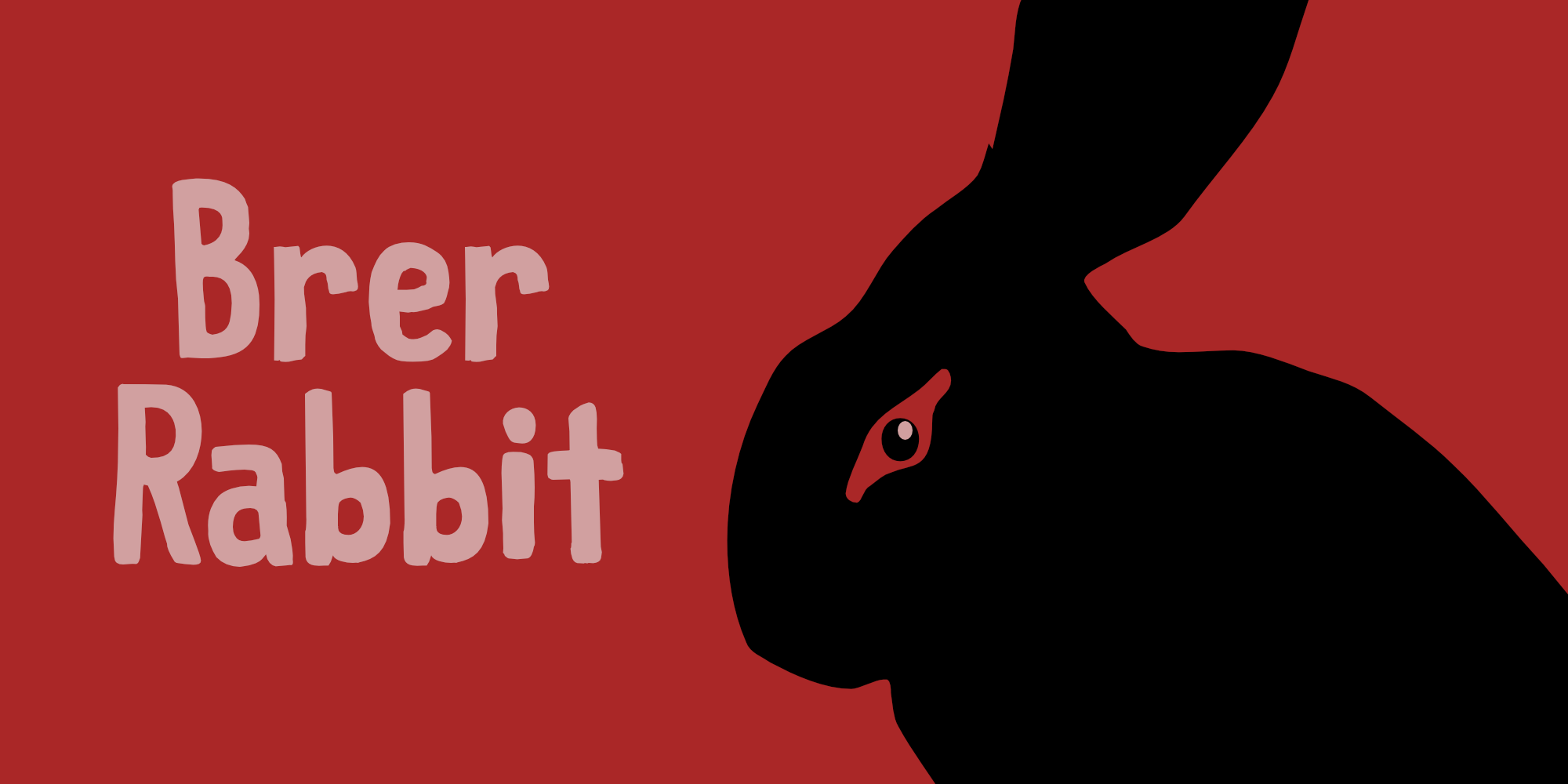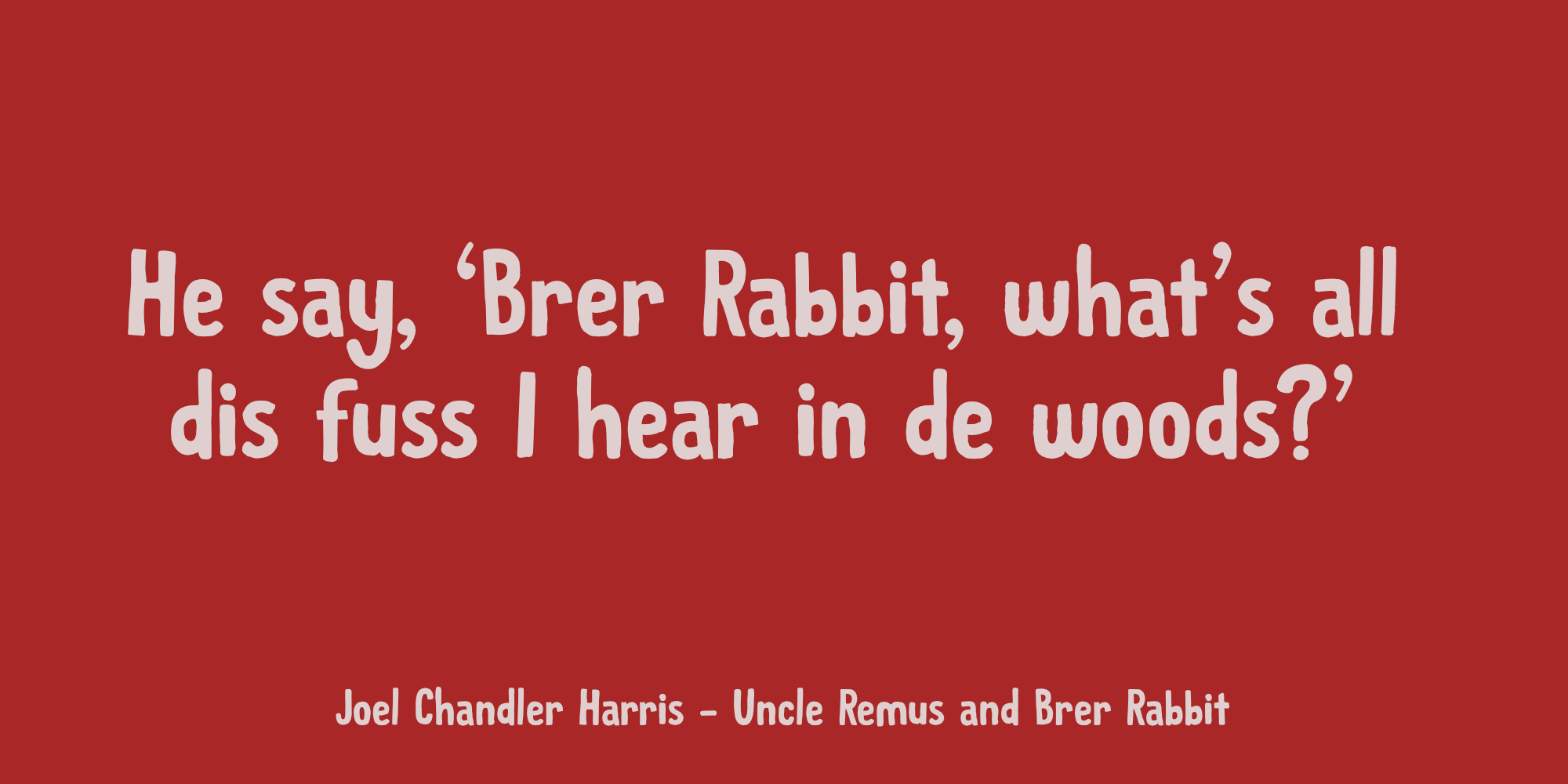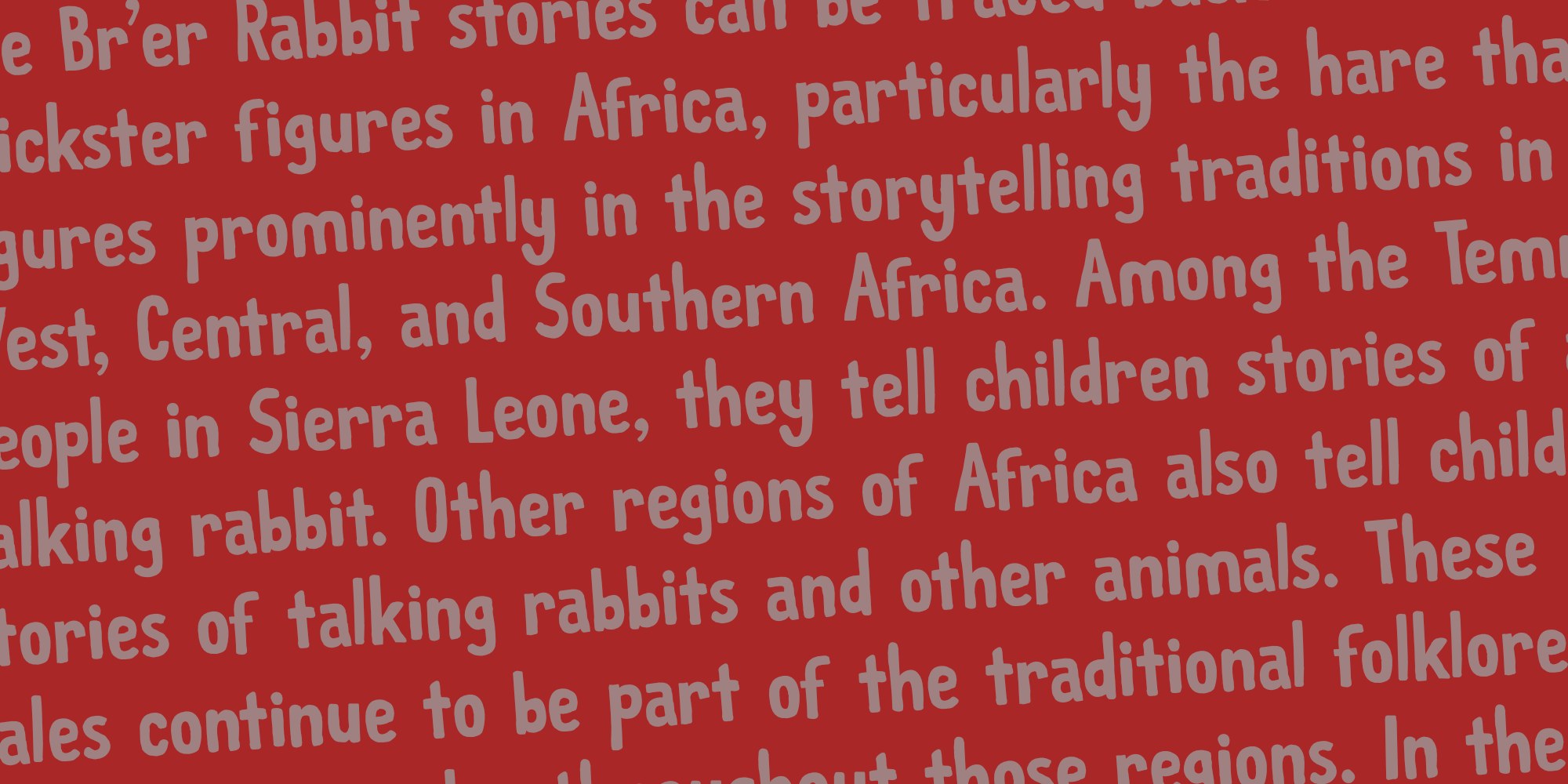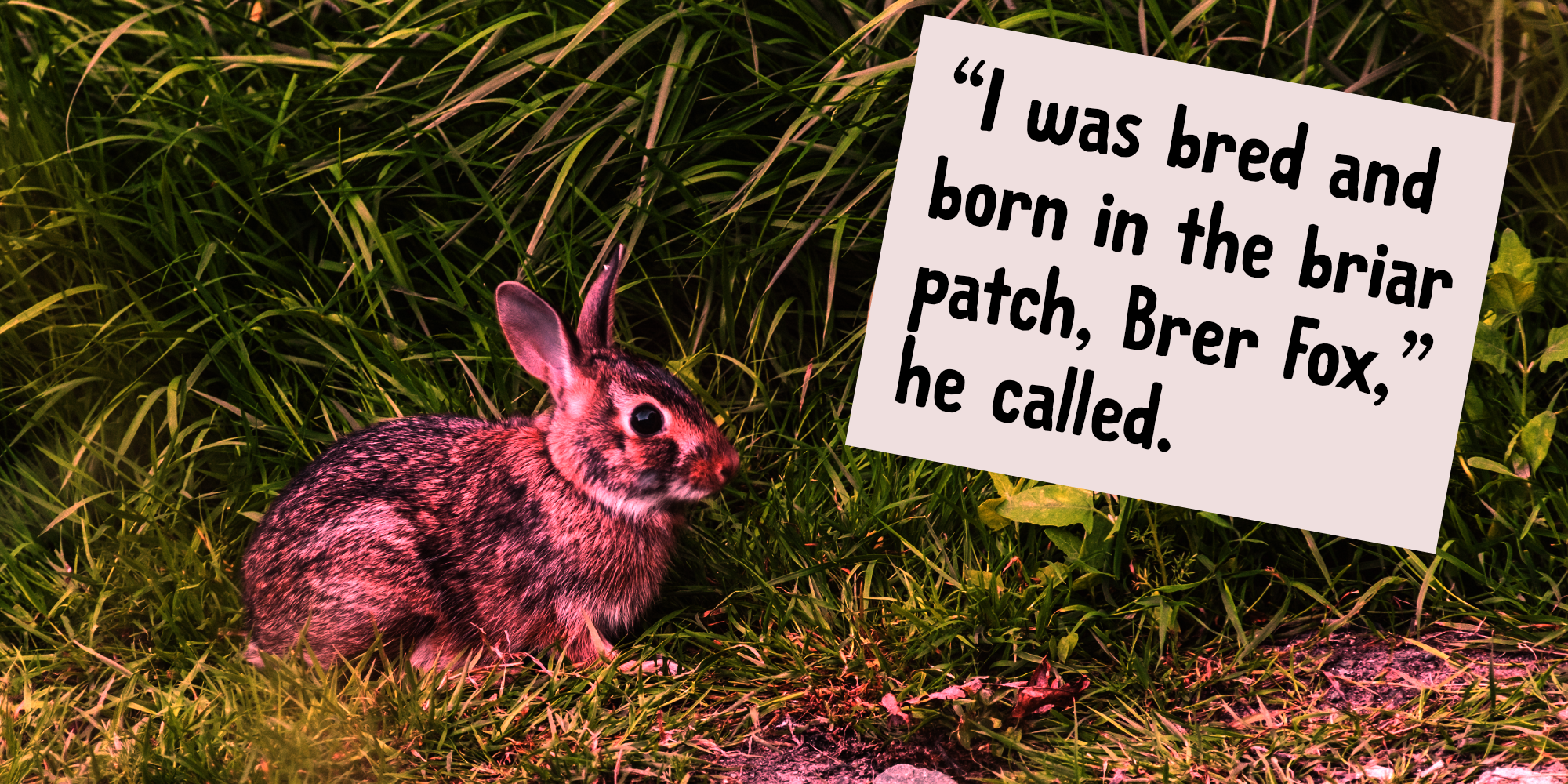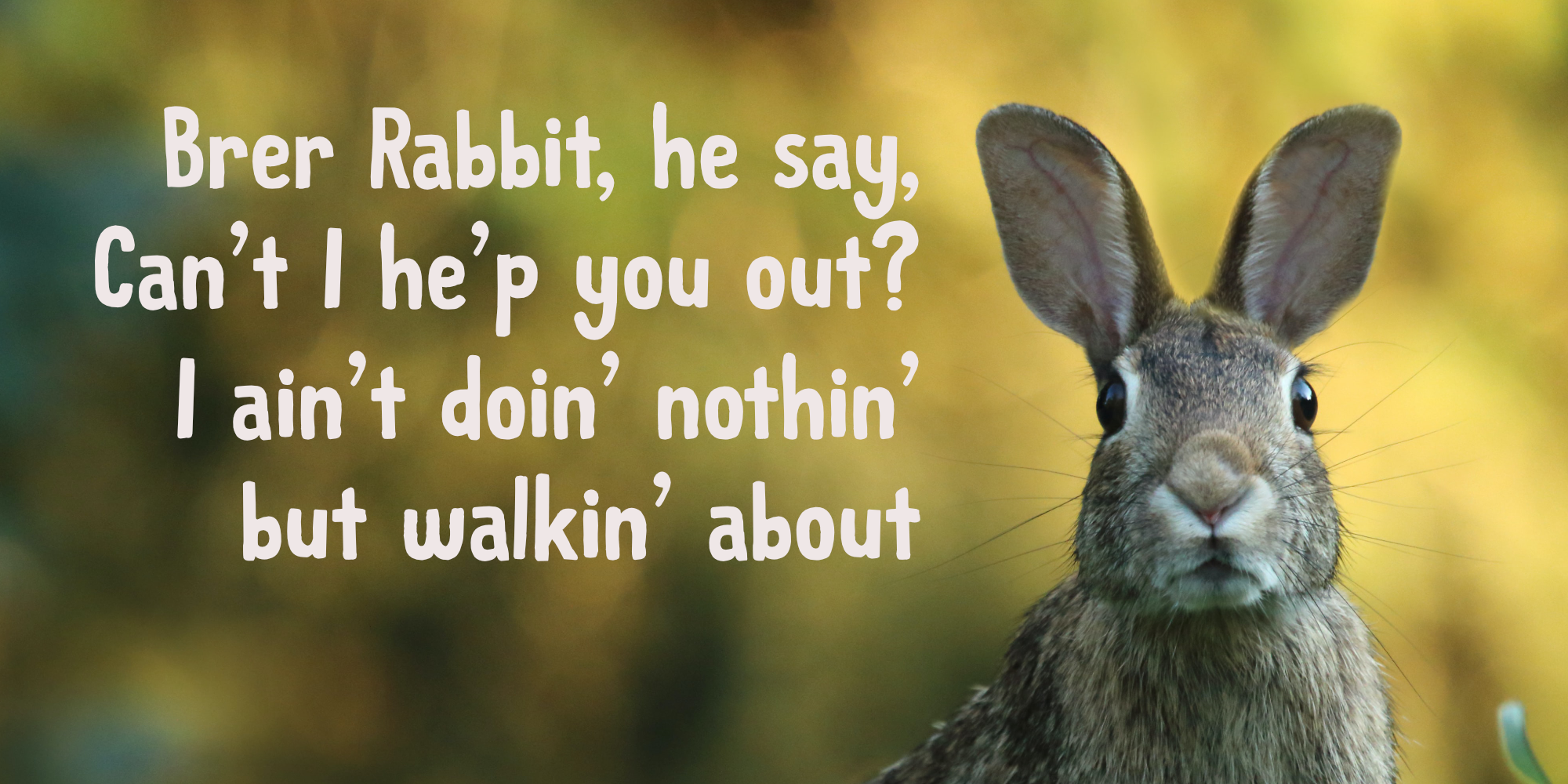
Brer Rabbit (2 fonts)
Brer Rabbit was based on an old font of mine called Rabbit On The Moon.It is a nice, cute children’s book font that comes with extensive language support and Brer Rabbit himself, in the shape of the alternative asterisk glyph.